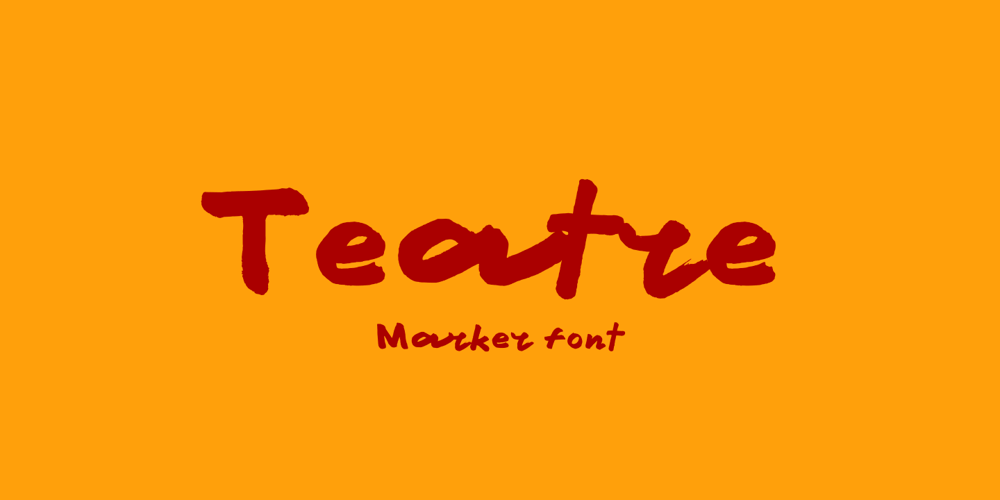
Teatre Font Family was designed by Arief Rochman and published by 4RM Font. Teatre contains 1 styles and family package options. Inspired by the authenticity of a vintage bakery design, the Teatre Font is made with marker strokes and a slightly irregular arrangement of characters to create the desired value of authenticity. Suitable for use in retro or modern designs.